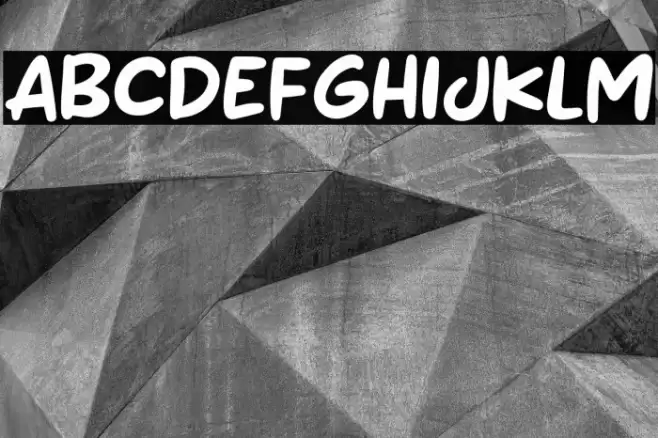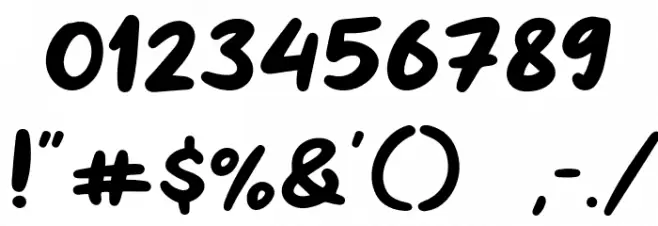
Spicy Taste Font
Spicy Taste Description
This font features a playful and bold handwritten style, characterized by its rounded and slightly irregular letterforms. The strokes are thick and consistent, giving it a friendly and approachable appearance. The uppercase and lowercase letters maintain a cohesive look, with a slight slant that adds to its casual charm. The numerals and special characters follow the same design principles, ensuring uniformity across all glyphs. This font is ideal for projects that require a personal touch, such as invitations, greeting cards, or playful branding materials. Its boldness ensures readability, while the unique style adds a distinctive flair.
A bold, playful handwritten font with rounded, slightly irregular letterforms from Uncategorized fonts.
- Font: Spicy Taste
- Proposed Projects: Ideal for invitations, greeting cards, playful branding, and casual designs.
- Overall Style: Playful
- Use Case: Headlines, Logos, Casual Text
Spicy Taste UPPERCASE
Spicy Taste LOWERCASE
Spicy Taste OTHER CHARS